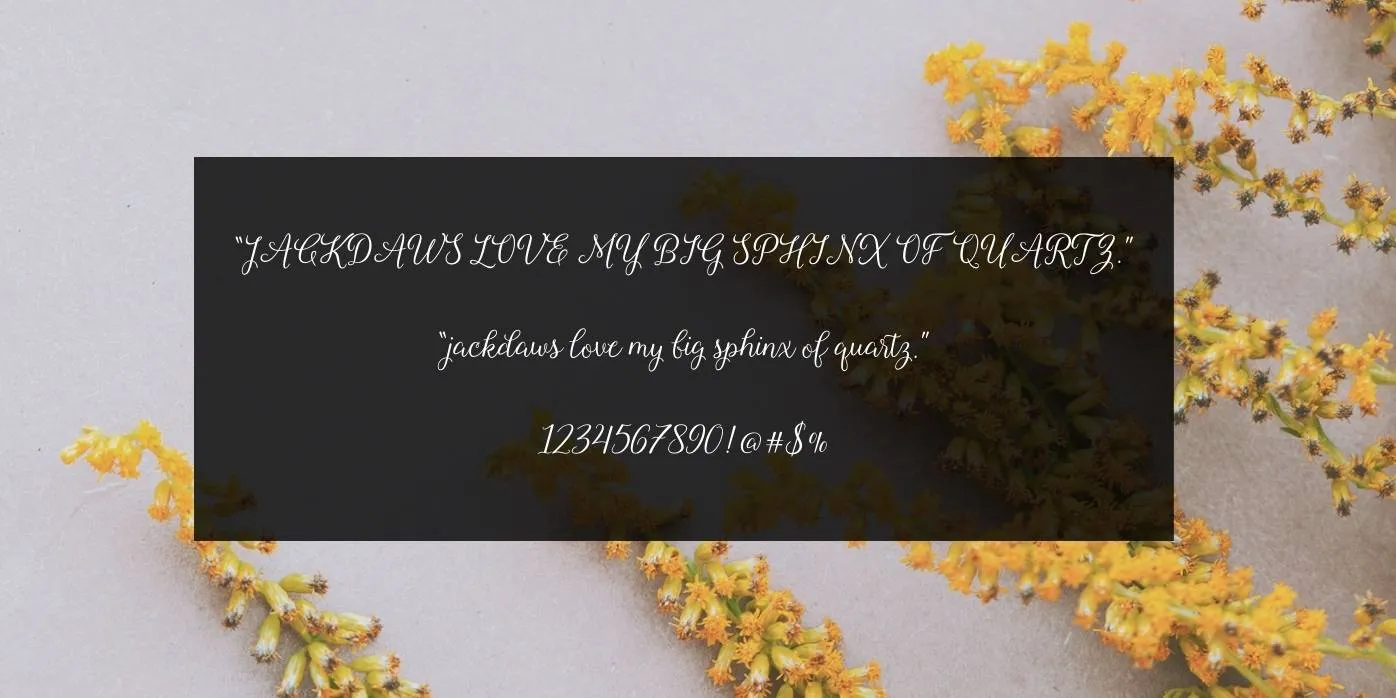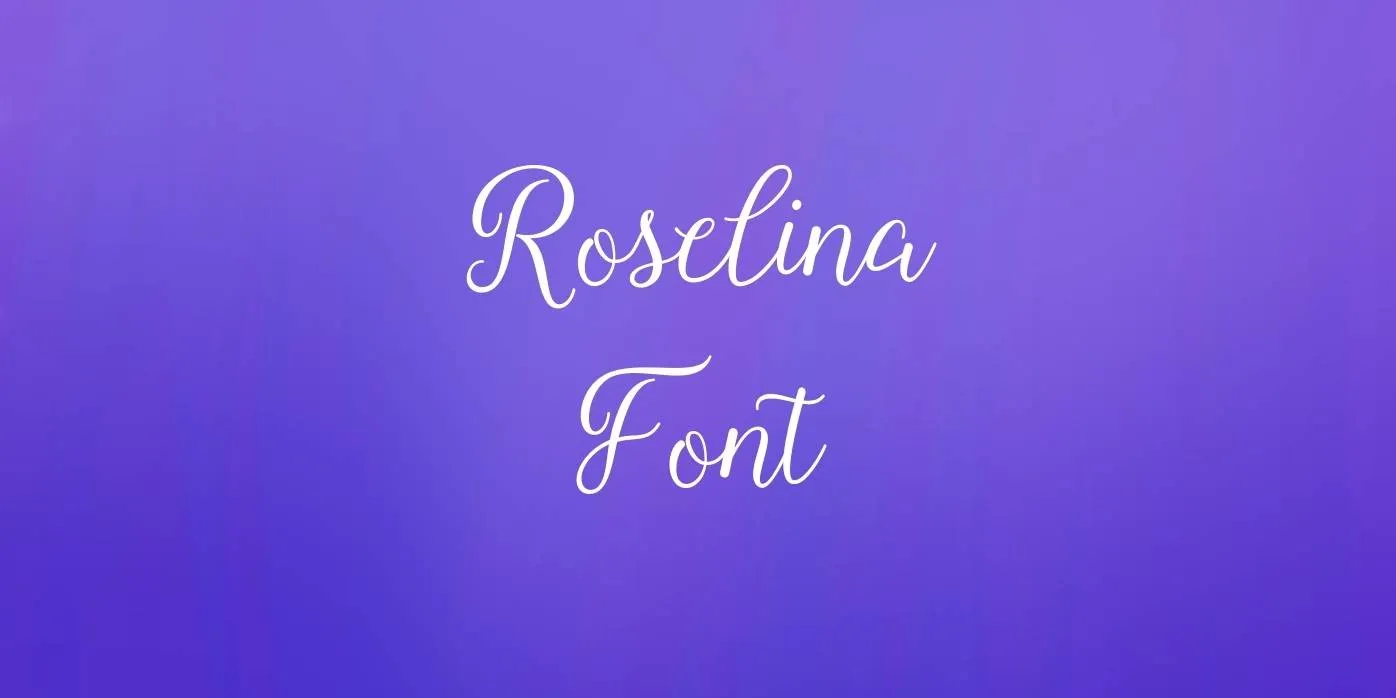
Roselina Font
In this post, we introduce a stylish typeface named Roselina Font. This font family was developed by Seniors Studio. It belongs to the calligraphy font family. The design of this family is inspired by traditional calligraphy.
The strokes of letters are very thin and delicate. As a result, it looks very elegant and sophisticated. This font is available in two styles: regular and italic. Each style contains more than 200 characters.
So, it supports many languages including Latin, Cyrillic, and Greek. In addition, Roselina Typeface comes with some OpenType features such as fractions, old-style numerals, ligatures, etc. It is used for Adobe and Canva. Its alternative ondise font is perfect for many designs.